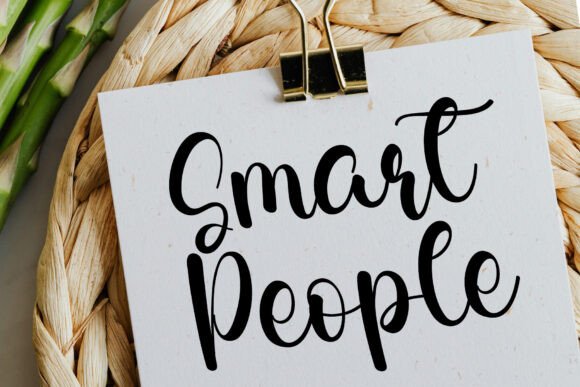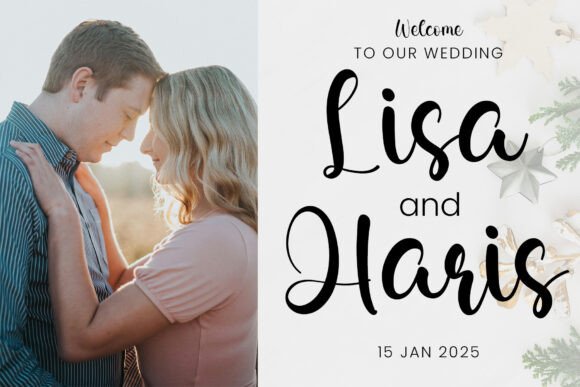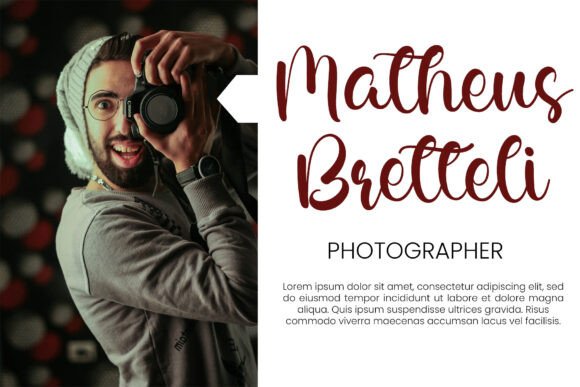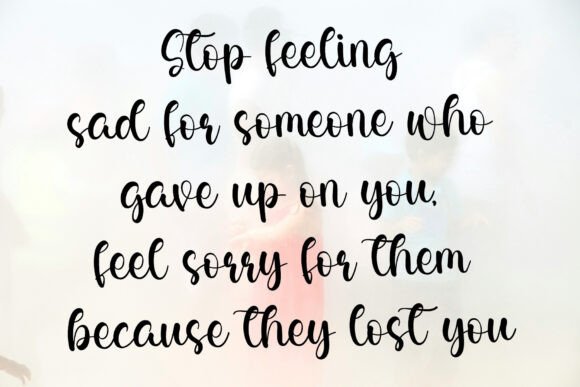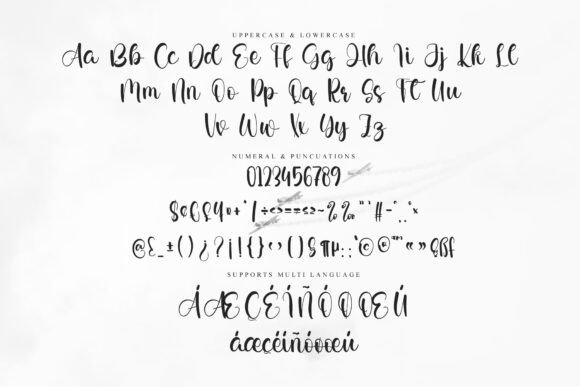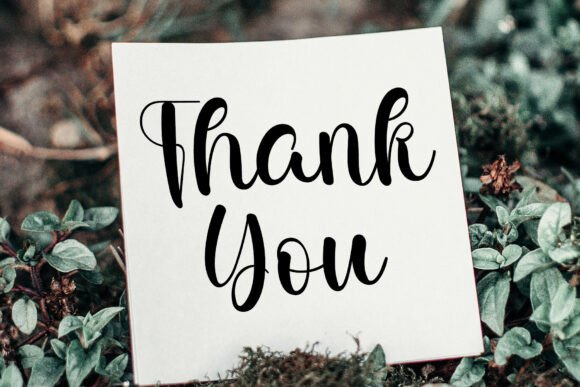
Deck the Halls with Style: Introducing the Beautiful Christmas Font
It’s that time of the year again – the season of love, laughter, and creativity. As you start brainstorming ideas for your holiday projects, the excitement is palpable. You envision a winter wonderland, filled with sparkling lights, festive colors, and of course, beautiful typography. And that’s where the Beautiful Christmas Font comes in – a sweet and cursive handwritten font that will add a touch of magic to your designs.
This charming font is perfect for adding a joyful and romantic feel to your projects, from branding and logos to wedding invitations, greeting cards, and fashion lookbooks. With its elegant yet casual vibe, the Beautiful Christmas Font is a valuable asset for designers looking to create unique and eye-catching designs that stand out from the crowd.
- Unique Characteristics: Hand-drawn, elegant, and whimsical design elements, including ornaments, holly, and snowflakes
Designer Review: Beautiful Christmas Font
I’ve had the chance to work with the “Beautiful Christmas Font” and here’s my honest take on it. ✨ First, I love the festive vibe it brings to any design. The font is perfect for creating holiday-themed materials like cards, posters, and social media graphics. It’s also versatile enough to be used in a variety of contexts, from elegant invitations to playful advertisements.
One of the standout features of this font is its legibility. Even at smaller sizes, the text remains clear and easy to read, making it a great choice for promotional materials that need to be displayed in public spaces.
However, there are some limitations to consider: ⚠️ The font may not be the best choice for longer blocks of text, as it can become difficult to read when used extensively. Additionally, some of the characters may not be compatible with certain font styles or formatting.
- Festive vibe and versatility
- Legibility, even at smaller sizes
- Perfect for holiday-themed materials
- May not be suitable for longer blocks of text
- Some characters may not be compatible with certain font styles or formatting
Overall, I think the “Beautiful Christmas Font” is a great addition to any designer’s toolkit, especially during the holiday season. While it may have some limitations, its unique style and versatility make it a valuable resource for creating engaging and festive designs.
The Beautiful Christmas Font is perfect for:
Christmas card designs
Invitations and party flyers
Holiday-themed social media posts
Yes, you can customize the Beautiful Christmas Font to create a new design. The font includes various OpenType features, such as ligatures, swashes, and ornaments, which can be accessed using design software that supports these features, such as Adobe Illustrator or InDesign.